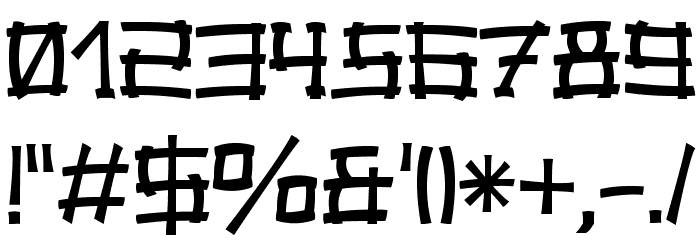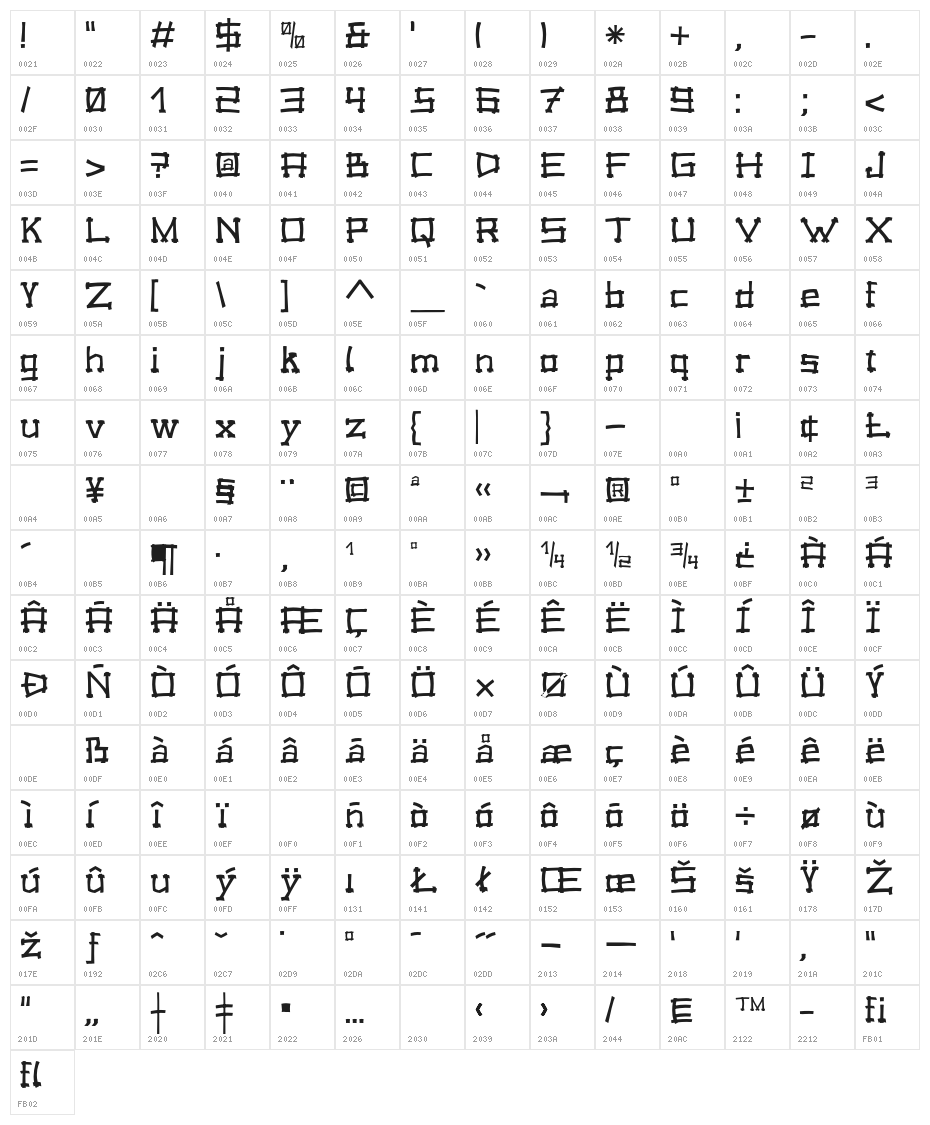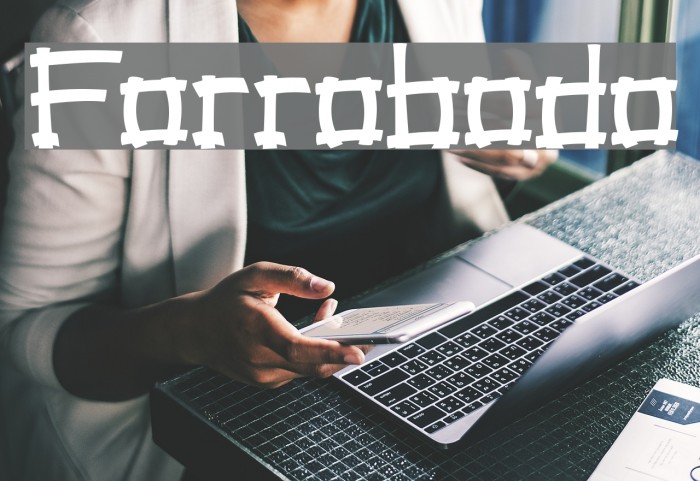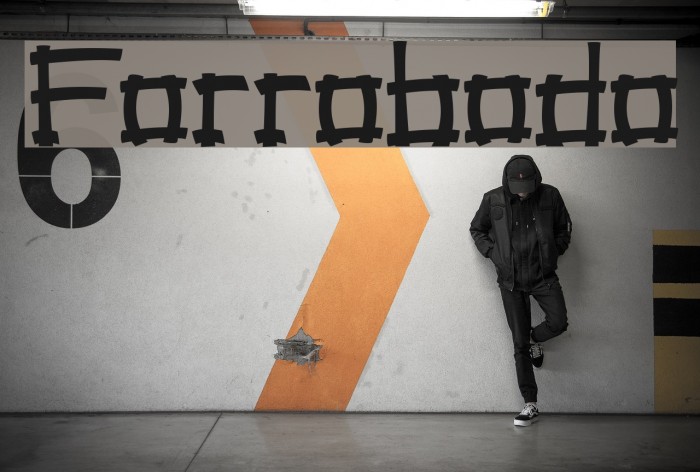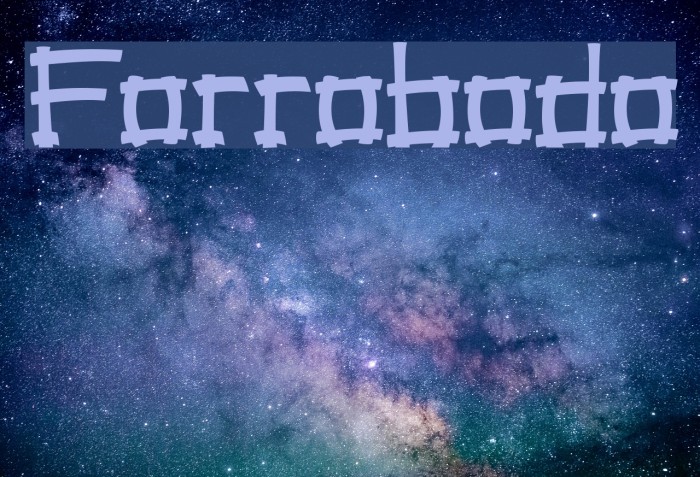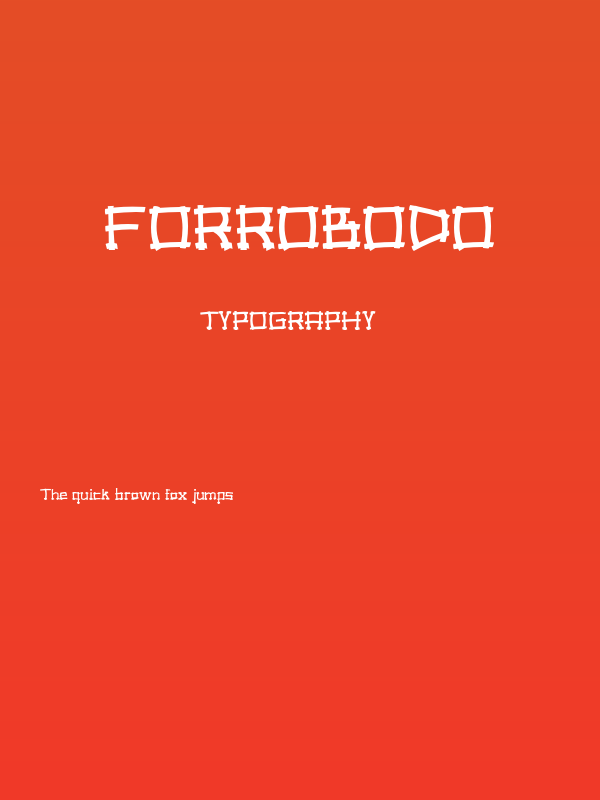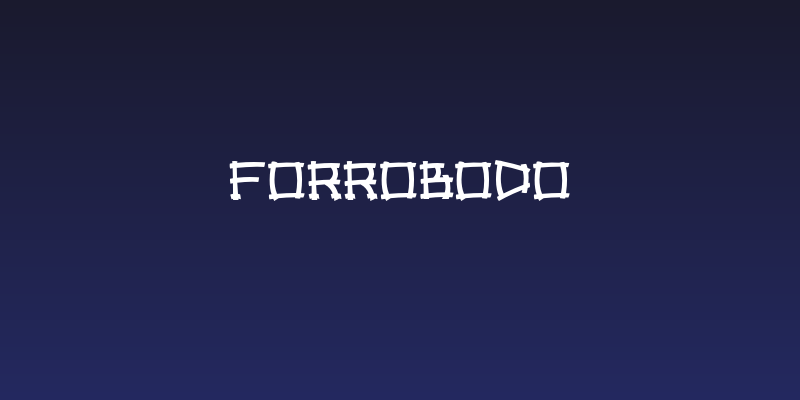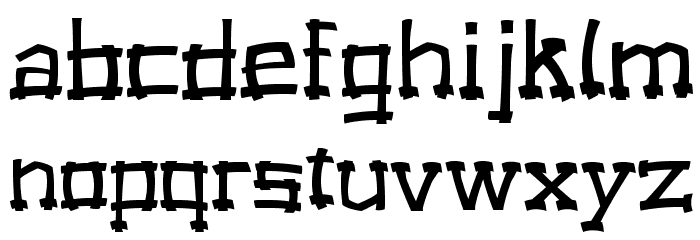
Forrobodo Font
Forrobodo Description
This font features a bold and rugged style with a distinctly hand-drawn appearance. The characters are constructed with thick, uneven strokes that give it a raw and energetic feel. The uppercase and lowercase letters maintain a consistent height, while the numbers and special characters follow the same bold aesthetic. The overall design is reminiscent of graffiti or street art, making it stand out with its unique and unconventional look. The font's playful and dynamic nature makes it suitable for projects that require a strong visual impact.
| Proposed Projects | Ideal for street art designs, posters, album covers, and branding that requires a bold statement. |